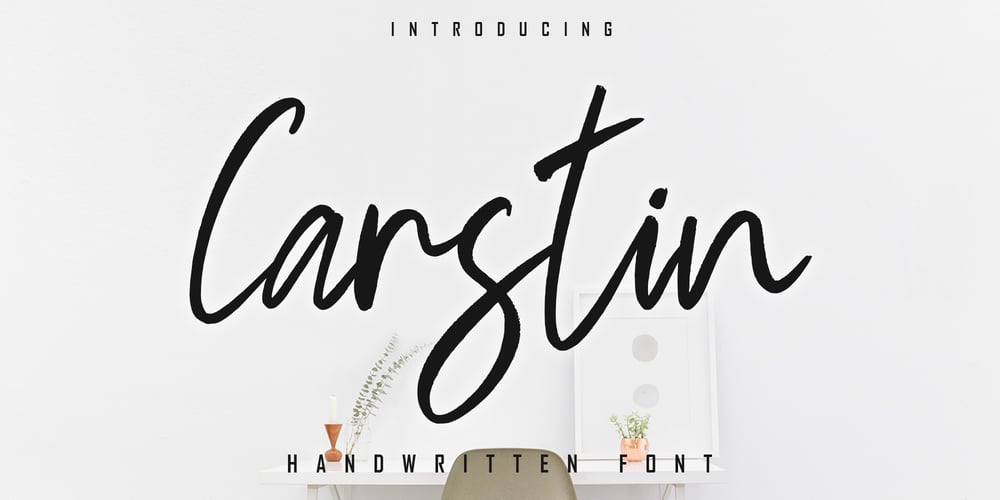
Carstin Font Family was designed by Irfan Mahmudin and published by Skiiller Studio. Carstin contains 1 styles and family package options. Carstin Handwritten font Equipped with uppercase, lowercase letters, numbers, punctuation, and so many variations on each character including alternative opentype such as Standard Ligature. Perfect for use for Logotype, Letterhead, Posters, Clothing Designs, Labels, quotes and more